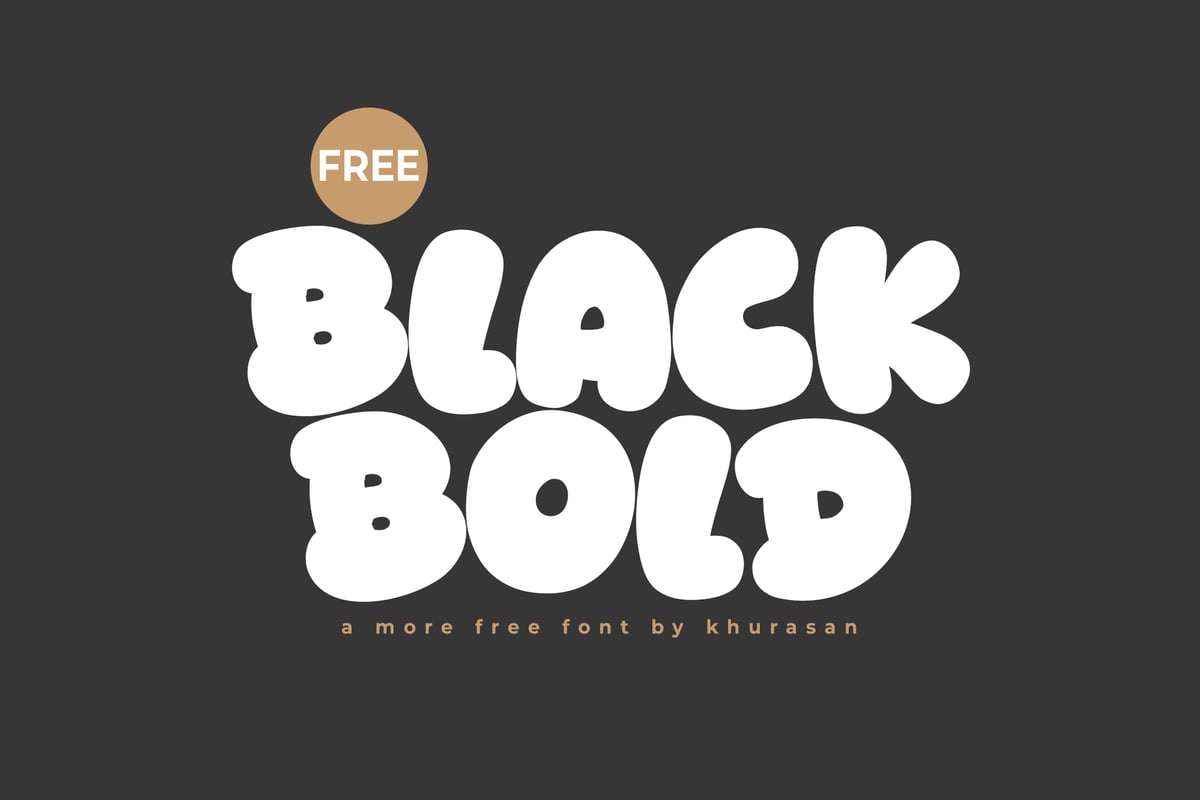
Free Blackbold - a Playful Free Font
Discover Blackbold - the playfully confident handwritten font that brings effortless charm to every creative project.
Looking for a typeface that doesn't take itself too seriously? Blackbold delivers exactly what you need! Inspired by casual doodles and bold marker sketches, this handcrafted font brings a relaxed, authentic feel to any design work. From birthday cards to trendy t-shirts, Blackbold makes everything look naturally effortless and inviting.